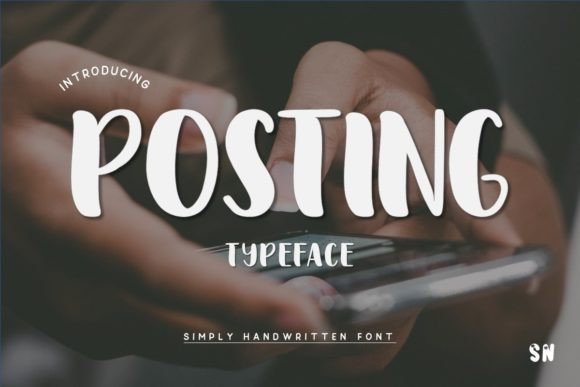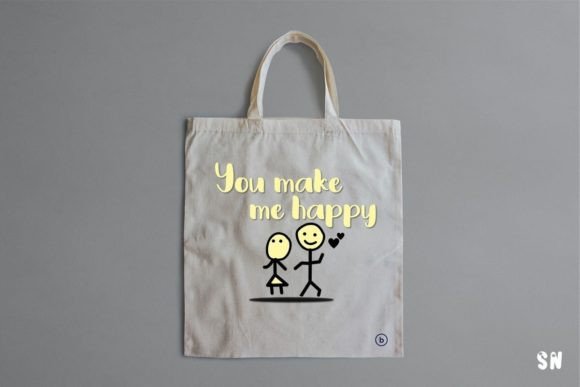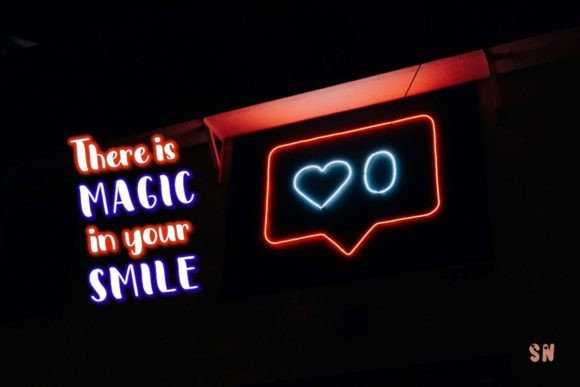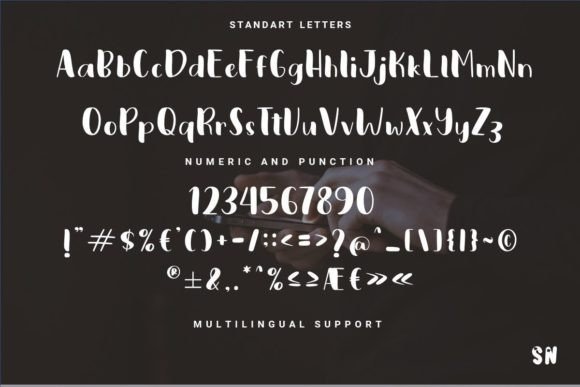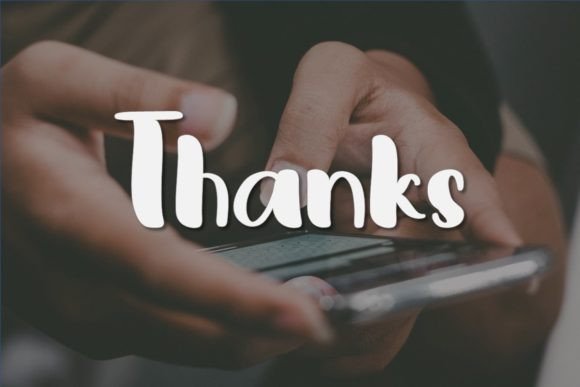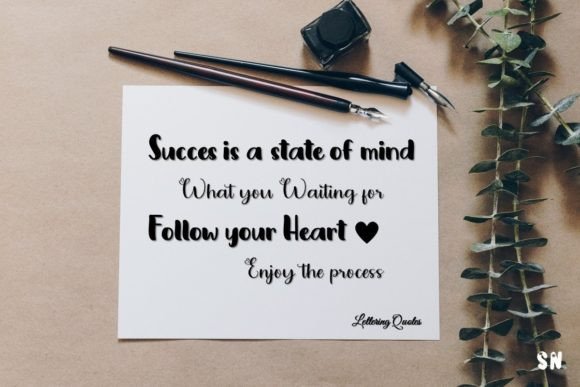
Posting Font
About Posting Font
“Posting Typeface: Where Warmth Meets Friendliness in Handwritten Typography
Introducing Posting Typeface, a friendly and warm handwritten font designed to infuse your creative projects with a sense of calm and fun. Its inviting demeanor and approachable style make it the perfect choice for a variety of designs, including wedding invitations, quotes, greeting cards, logos, and any project that seeks a peaceful touch combined with a hint of playfulness.
The appeal of Posting Typeface lies in its gentle warmth and genuine friendliness, creating a visual atmosphere that feels like a comforting embrace. Its flowing strokes and relaxed letterforms exude tranquility, making it an ideal font for projects that require a peaceful touch. Imagine your wedding invitations adorned with Posting Typeface, setting the tone for a serene and joyous celebration. Picture your quotes featuring its friendly and calm look, instilling a sense of tranquility and positivity. With Posting Typeface, your designs radiate with a sense of approachable charm, making them visually delightful and emotionally uplifting.
One of Posting Typeface’s standout features is its versatility. Its friendly and warm handwritten style makes it suitable for a wide range of design applications, from digital platforms to printed materials. Whether you’re creating greeting cards or designing a logo for a heartwarming brand, Posting Typeface enhances your creations with its inviting charm, making them stand out with a unique blend of warmth and friendliness. Let your projects exude a peaceful touch, and watch as your logos capture attention with a sense of genuine connection.
Moreover, Posting Typeface is more than just a font; it’s an embodiment of genuine warmth and authentic friendliness. Its calm and fun look resonates with individuals who appreciate the comforting embrace of friendly design, making it a favorite among designers and enthusiasts seeking a font that effortlessly combines warmth and approachability. Posting Typeface becomes a symbol of your creativity, allowing you to create designs that not only catch the eye but also evoke a sense of genuine connection and positivity.
In a world where warmth meets friendliness in handwritten typography, Posting Typeface helps you make a statement. It speaks the language of genuine warmth and sincere connection, resonating with those who appreciate the beauty of friendly design and heartfelt positivity. Whether you’re designing for digital platforms, branding, or special events, Posting Typeface becomes your trusted companion, guiding you toward design excellence.
So, why settle for ordinary when you can embrace the extraordinary with Posting Typeface? Let this friendly and warm handwritten font be the canvas for your creative expressions, and watch as your projects come to life with genuine warmth, approachable friendliness, and heartfelt charm. Let your creativity flow, and let Posting Typeface be the brushstroke that paints your ideas into visually delightful masterpieces, leaving a lasting impression on the hearts of your audience. Elevate your designs with Posting Typeface, where warmth meets friendliness in handwritten typography, and transform your creations into works of art that resonate with the authentic spirit of heartfelt creativity.”